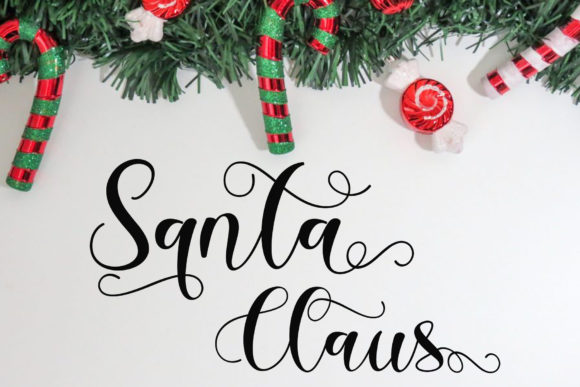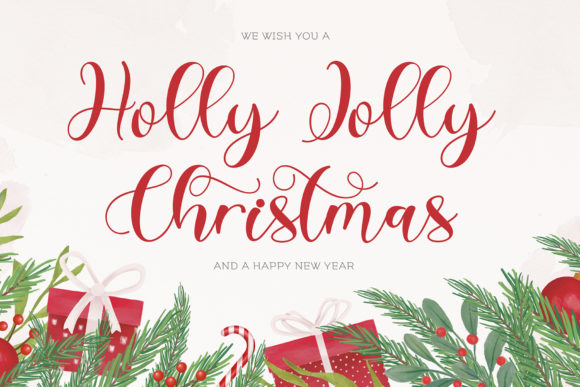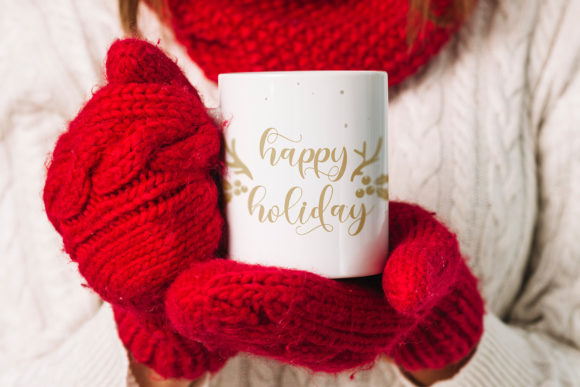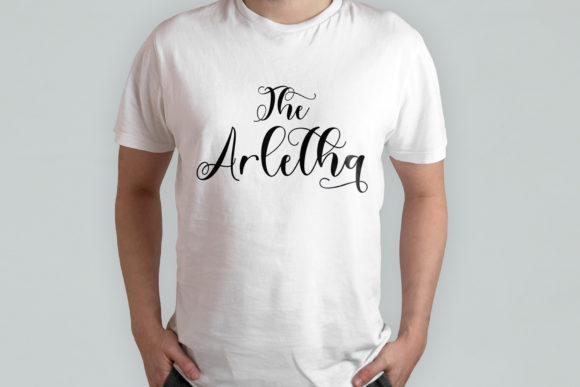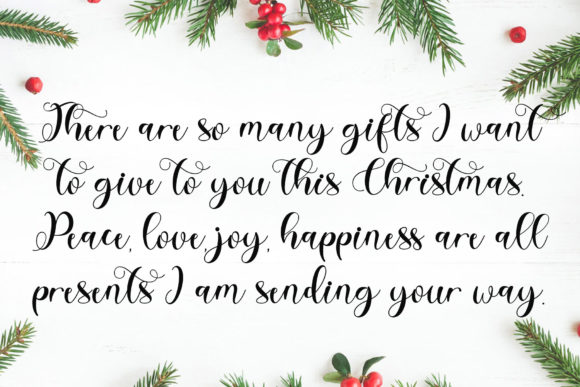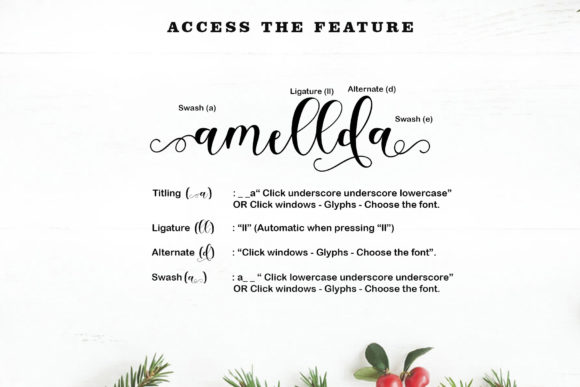
Introduction to Christmas Shepherd Font
It’s that time of the year when designers start brainstorming ideas for their holiday projects. The fireplace crackles, the lights twinkle, and the festive atmosphere calls for something special. As you search for the perfect design resource to add that extra sparkle to your creative project, you stumble upon the enchanting Christmas Shepherd Font. This elegant and whimsical typeface is about to become your new favorite companion in the world of design.
With its unique, flowing characters that dance along the baseline, the Christmas Shepherd Font is a game-changer for designers looking to elevate their work to new heights. Its PUA encoding ensures seamless access to all the amazing glyphs and ligatures, making it a high-quality addition to any project. Whether you’re working on a holiday card, a festive brochure, or a seasonal website, this font is sure to bring a touch of luxury and magic to your design.
Key Features of Christmas Shepherd Font
- High-quality design resource ideal for creative projects, especially those related to Christmas and winter themes.
- Features a unique, custom design that adds a touch of elegance and sophistication to any project.
- Perfect for use in digital designs, such as social media graphics, web pages, and presentations, as well as print materials like business cards and brochures.
Honest Review: Christmas Shepherd Font
As a designer, I’m always on the lookout for unique and high-quality design resources to elevate my creative projects. Recently, I stumbled upon the Christmas Shepherd Font, and I’m excited to share my honest review.
- Hand-drawn feel: The Christmas Shepherd Font has a beautiful, hand-drawn feel that’s perfect for adding a personal touch to your designs.
- High-quality graphics: The font is well-designed and features crisp, high-quality graphics that will enhance any project.
While the Christmas Shepherd Font is a great resource, there are a few limitations to keep in mind:
- Limited character set: The font only includes a limited character set, which may not be suitable for extended texts or complex projects.
- Not suitable for small text: The font’s large, decorative style may not be ideal for small text or fine details.
Overall, I’m impressed with the Christmas Shepherd Font’s unique design and high-quality graphics. While it may have some limitations, it’s a great resource for designers looking to add a personal touch to their projects. With a little creativity, I think this font has the potential to become a staple in many designers’ toolkits.
Tips for Getting the Most Out of the Christmas Shepherd Font
Experiment with different font sizes, colors, and combinations to create a unique design. Use the font in conjunction with other design elements, such as images and shapes, to enhance your creative project.
The Christmas Shepherd Font is perfect for holiday-themed designs, such as Christmas cards, gift tags, and social media graphics. It’s also suitable for general design projects, including invitations, posters, and brochures.